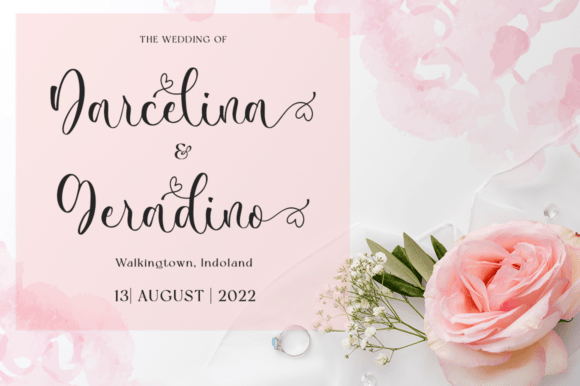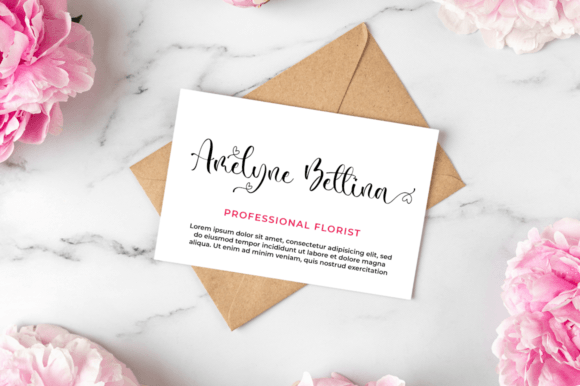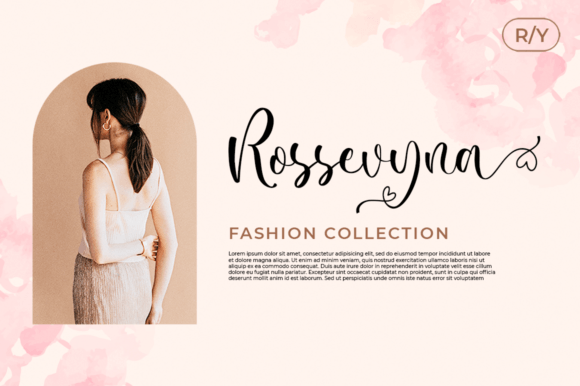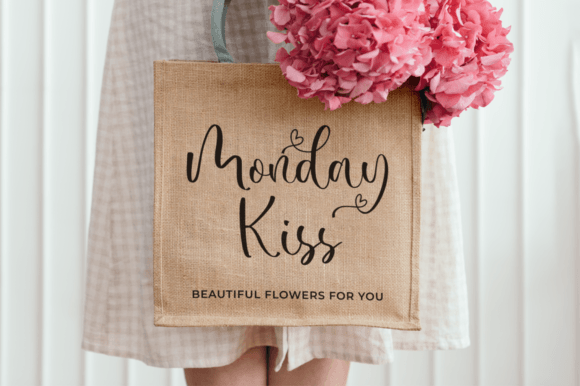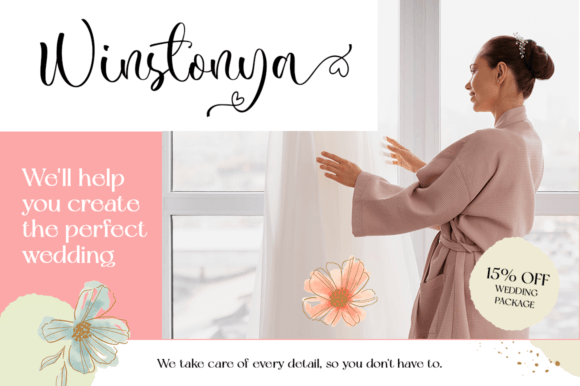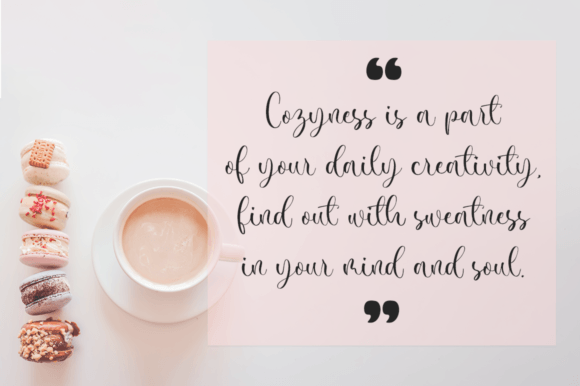
Introduction to Mecadonia Font
Have you ever been in the middle of a design project, and the perfect font just seems to elude you? You’ve scoured through countless design resources, but nothing quite captures the essence of your creative vision. That’s where the Mecadonia Font comes in – a beautiful and delicate handwritten font that’s sure to add a touch of luxury to any project.
As a designer, you know the value of having a high-quality font at your fingertips. And with Mecadonia Font, you’ll have access to a stunning array of glyphs and ligatures that can elevate your design to the next level. Whether you’re working on a free download or a paid project, this font is sure to make a lasting impression.
From its transparent background to its elegant feel, Mecadonia Font is the perfect addition to any creative project. And with its PUA encoding, you’ll have no trouble accessing all the amazing features this font has to offer. Get ready to take your designs to new heights with the Mecadonia Font.
Key Features of Mecadonia Font
- Includes a variety of unique and stylish font styles
Honest Review: Mecadonia Font
As a designer, I’m always on the lookout for high-quality design resources that can elevate my creative projects. The Mecadonia Font is one such resource that caught my attention.
- ✨ Beautiful, elegant script font that’s perfect for creative projects
One of the standout features of the Mecadonia Font is its elegant script design. It’s perfect for creating a sophisticated and creative look in any design project. I also appreciate the fact that it’s available for free download, making it an excellent resource for designers who are just starting out.
- ⚠️ Limited character set, which may not be ideal for extended text blocks
- ⚠️ May require some tweaking to achieve the desired look in certain design applications
Overall, I’m impressed with the Mecadonia Font and would highly recommend it to designers looking for a high-quality, elegant script font. While it may have some limitations, its free download option and beautiful design make it a valuable resource for any creative project.